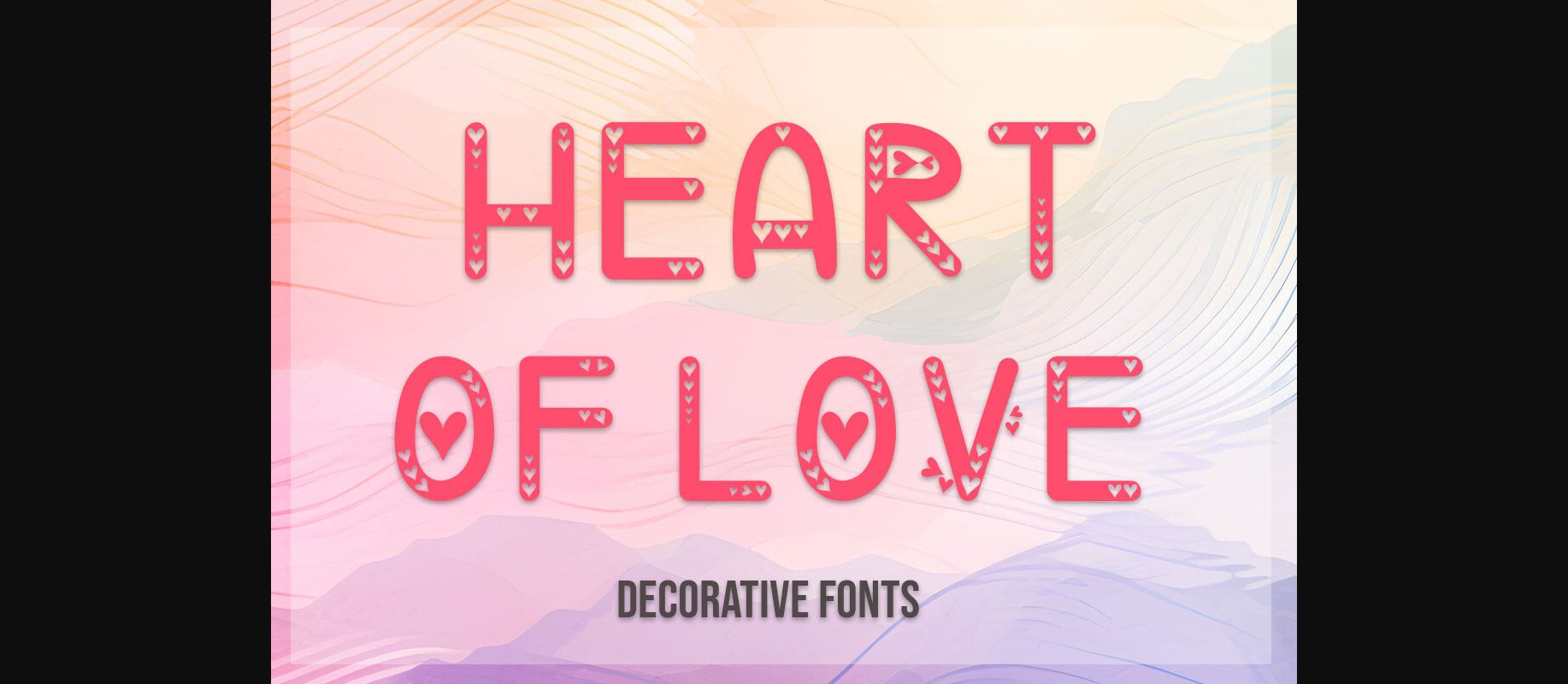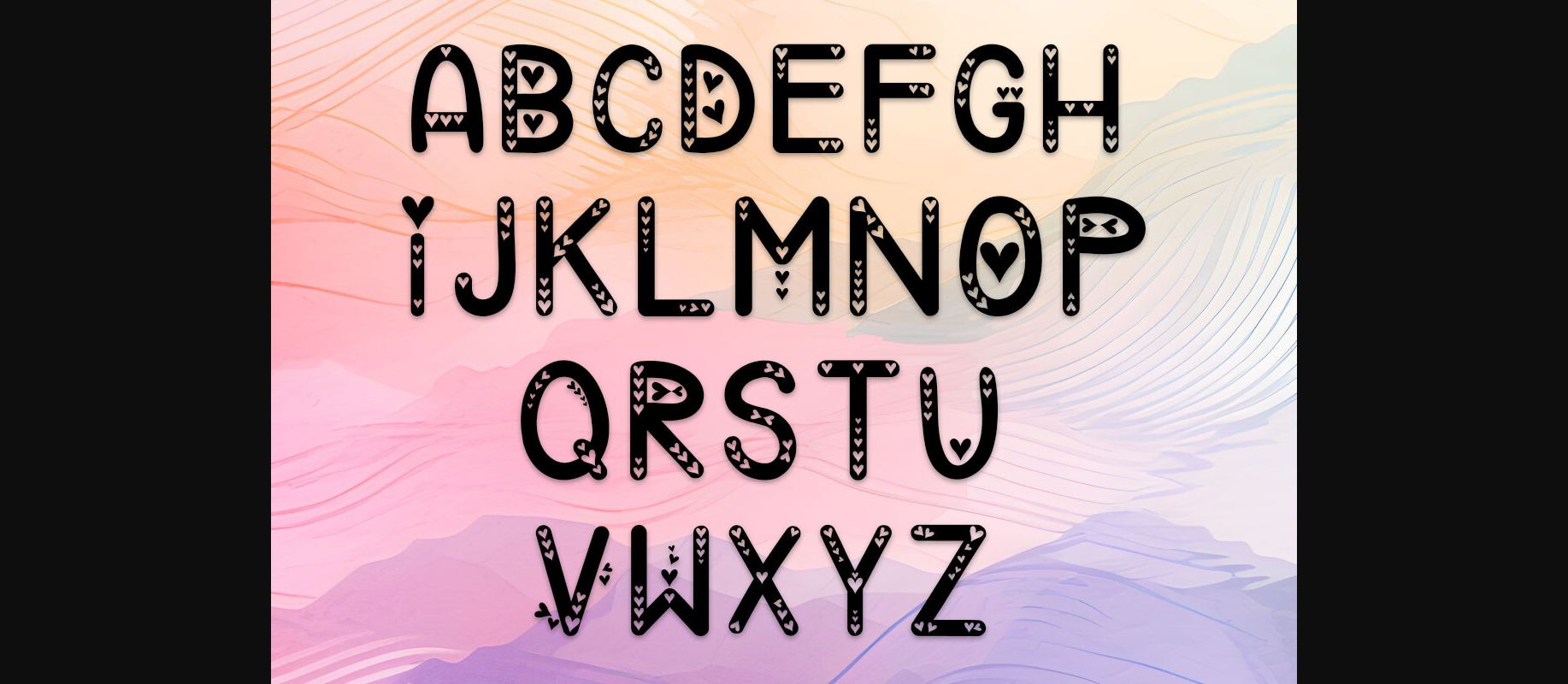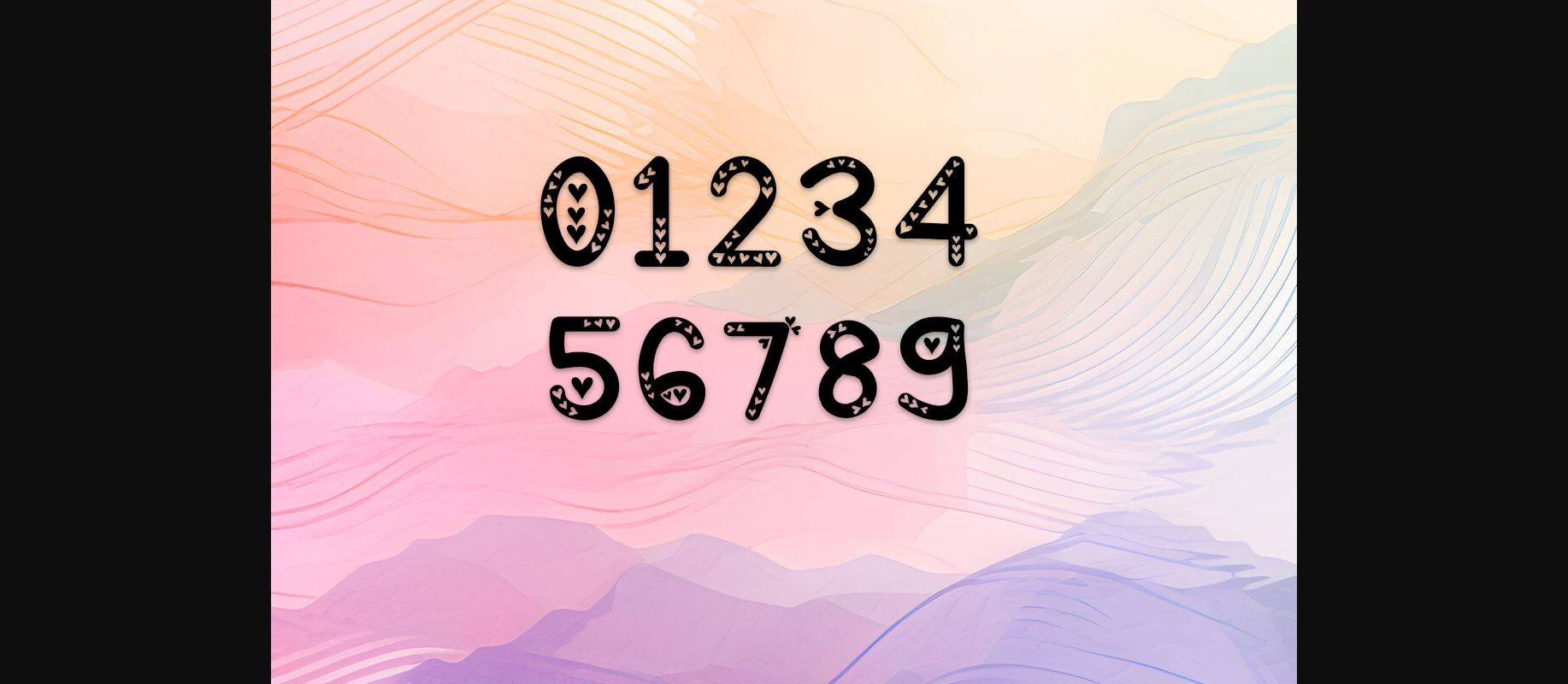
HomeDecorative FontsHeart of Love Font Decorative Fonts Heart of Love Font FacebookXPinterestWhatsApp 1 of 5 ... Heart of Love Font Poster 2... Heart of Love Font Poster 3... Heart of Love Font Poster 4... Heart of Love Font Poster 5... About Heart of Love Font Heart Love Font: 26 caps, 10 numbers (0-9). Expressive decorative fonts infused with love. Perfect for artistic creations & heartfelt messages. DOWNLOAD NOW People also explored Have Patience Font Emerald Triblend Bella Canvas 8413 Shirt Madeva Suarte Font Illuminoust Font Wonderful Flower Font Bertilda Script Font Creative Vintage Font Nobody is Perfect Font Sanango Font 392 0 TagsHeart of Love Font Previous articleHello Grimm FontNext articleChristmas Bright 17 Font LEAVE A REPLY Cancel reply Comment: Please enter your comment! Name:* Please enter your name here Email:* You have entered an incorrect email address! Please enter your email address here Website: Save my name, email, and website in this browser for the next time I comment. Personal Use Free Haris Wood Personal Use Free Read more about this font Senza Bella Personal Use Free Read more about this font Fuixg Personal Use Free Read more about this font Heart Memory Personal Use Free Read more about this font BLOG Fonts That Capture the Spirit of New York City New York City is more than just a place—it’s an experience, a rhythm, a visual language... How to Cut Any Font on Cricut: Convert a Font to SVG (Free) Elegant Wedding Invitation Fonts – Handwritten & Script Fonts How to Install and Use Fonts on Windows, macOS, and Web Projects